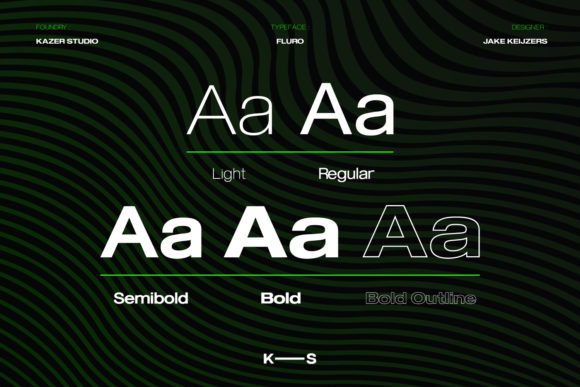
Fluro is a bold and cool sans serif font. This font is ideal for writing web designs, business cards, or pretty much anything else that requires a unique touch.
Fluro Font